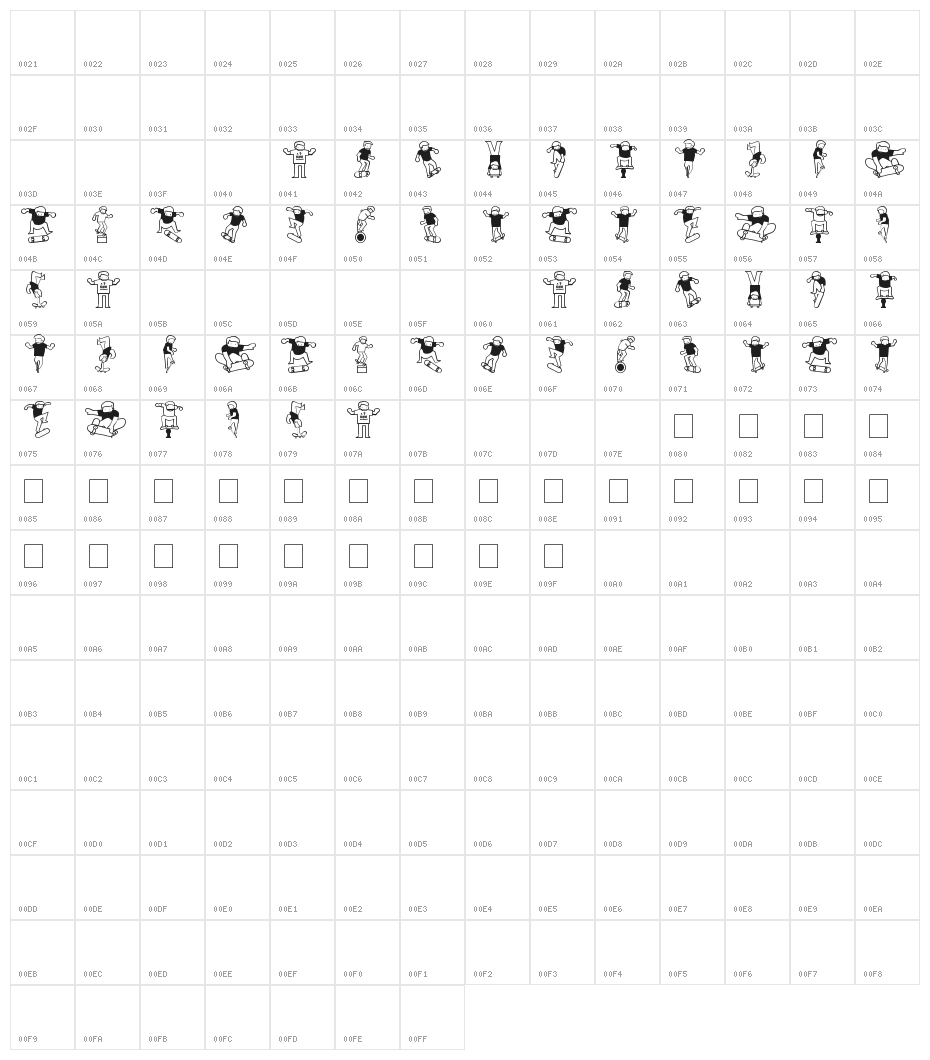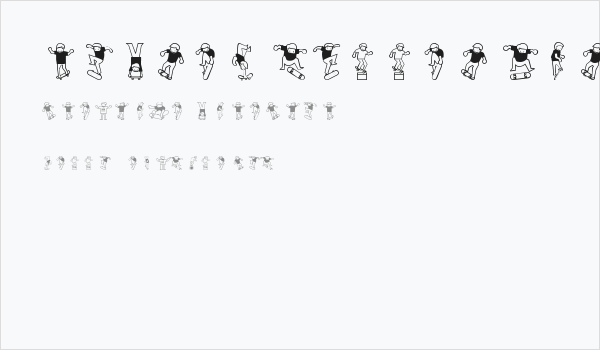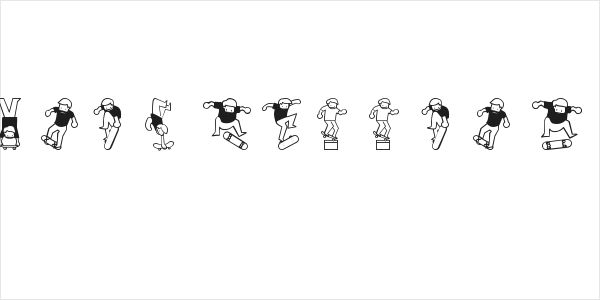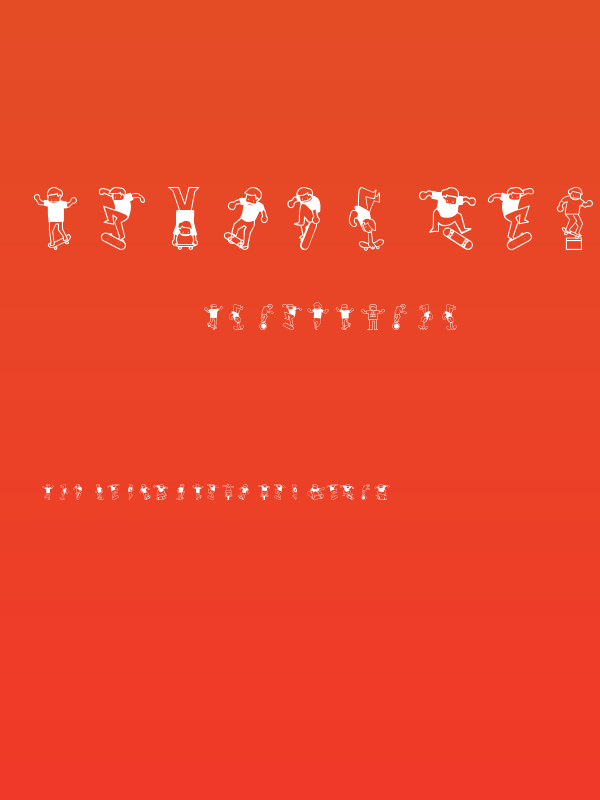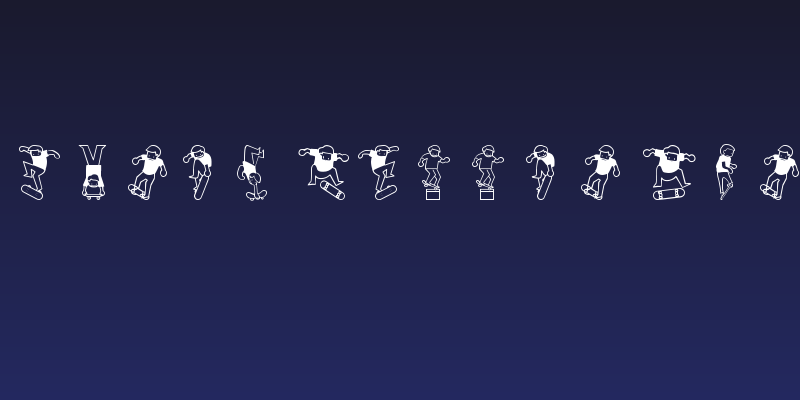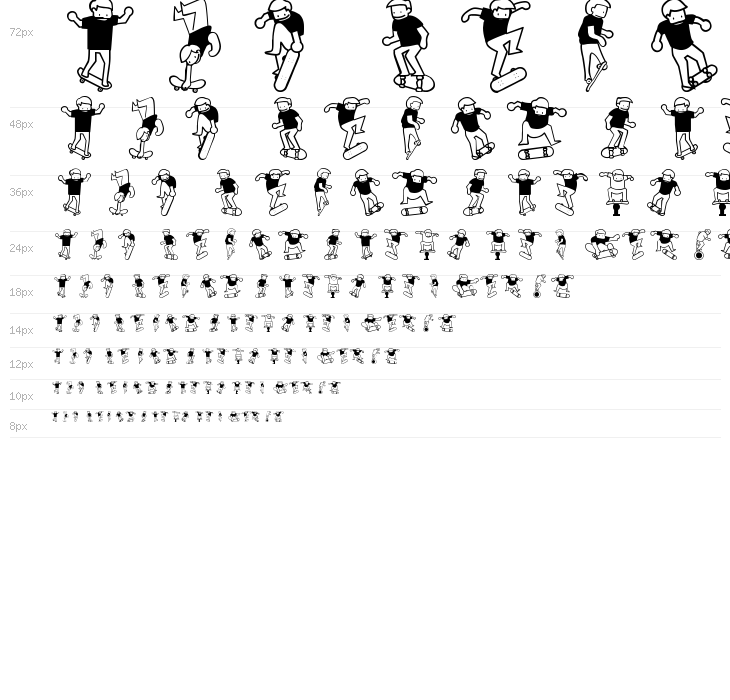
Rodney Mullen King Font
Rodney Mullen King Description
This font is a playful and dynamic representation of skateboarding culture, featuring characters in various skateboarding poses. Each letter and symbol is creatively depicted as a figure performing a trick, capturing the essence of movement and energy. The style is cartoonish and fun, with bold outlines and minimalistic details that emphasize the action. This unique approach makes it stand out as a decorative and thematic font, perfect for projects that aim to convey a sense of adventure and youthfulness.
| Use Case | Logos, Posters, Merchandise |
| Proposed Projects | Ideal for skateboarding event posters, youth-oriented branding, sports merchandise, and playful graphic designs. |